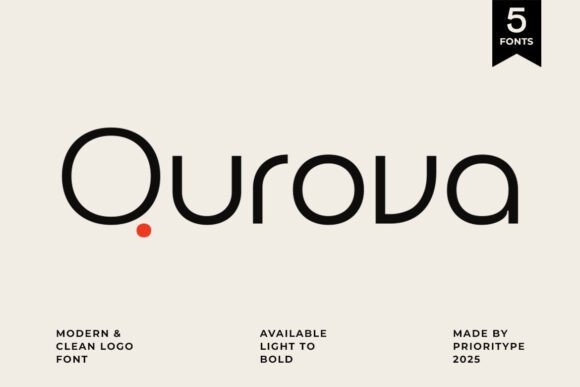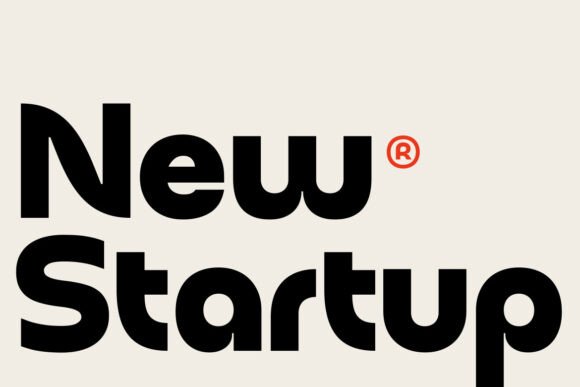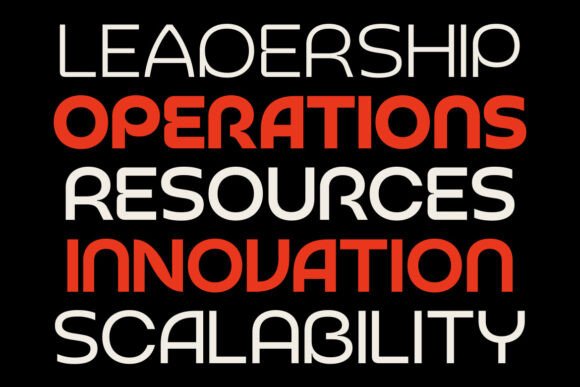
Qurova Font: Modern Sans Serif for Clean Logo Design & Branding Kits
About the Qurova Font
Elevate your designs with Qurova Font, a font that combines sophistication with readability. Qurova is a modern sans-serif typeface crafted for professional branding and corporate design. Featuring a full range of weights from Thin to Bold, it combines clean lines with versatile functionality, making it ideal for logos, visual identities, and sophisticated branding needs.
Qurova excels in headline applications, short-form text, and logo design, lending a modern and sophisticated feel to branding materials and marketing collateral. Its clean lines ensure readability in posters and presentations, while the weight range allows for effective hierarchy. However, its less suitable for extended body copy or UI elements where high legibility over long passages is crucial.
For optimal visual impact, pair Qurova with a complementary serif typeface like Garamond for a classic contrast, or a geometric sans-serif like Futura for a more contemporary feel. A script font like Playfair Display can add a touch of elegance to formal branding projects.
Qurova projects a confident, clean, and modern personality, making it perfect for brands aiming for a professional yet approachable image. Its versatility allows for adaptation across various design applications, but maintaining mindful usage based on text length is key.
Qurova Font Usage Examples
Qurova Font Example